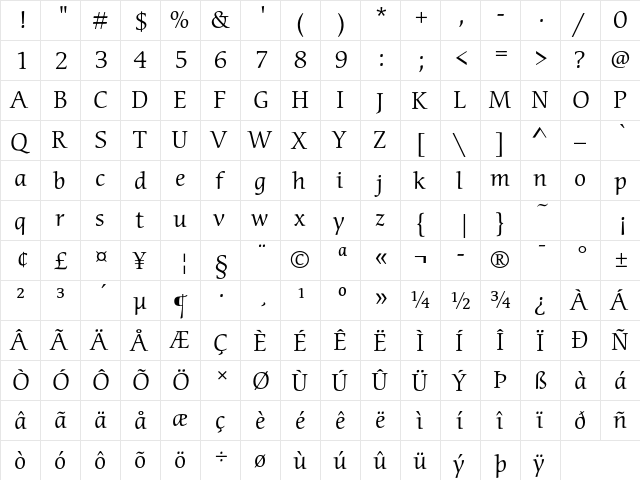
ITC Cerigo Std Book
| Designer | Jean-Renaud Cuaz |
Design Context for ITC Cerigo Std Typeface
ITC Cerigo Std offers clean, dependable letterforms without strong stylistic allegiance, making it a practical choice for designers who need flexibility.